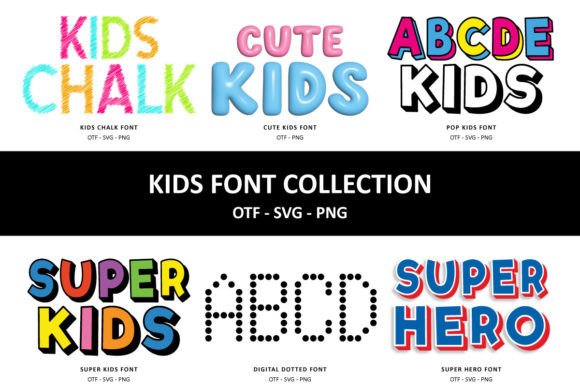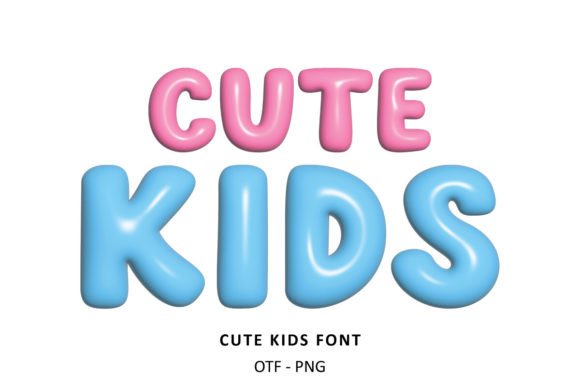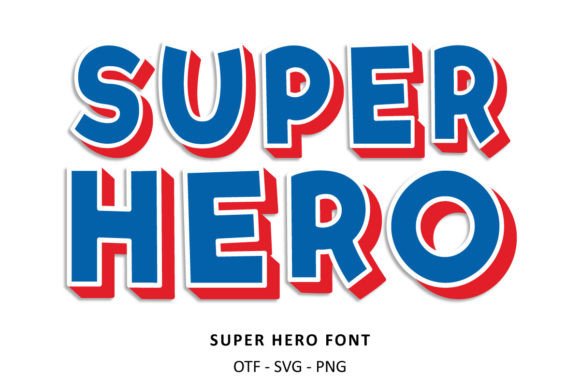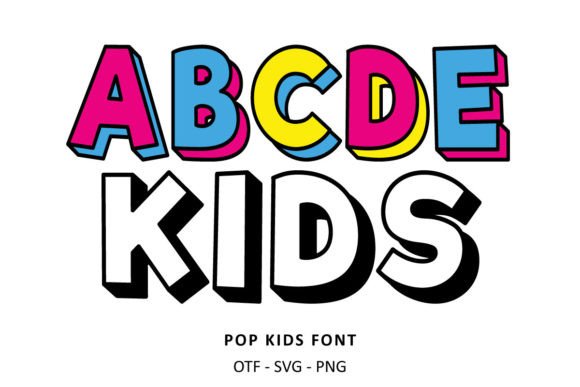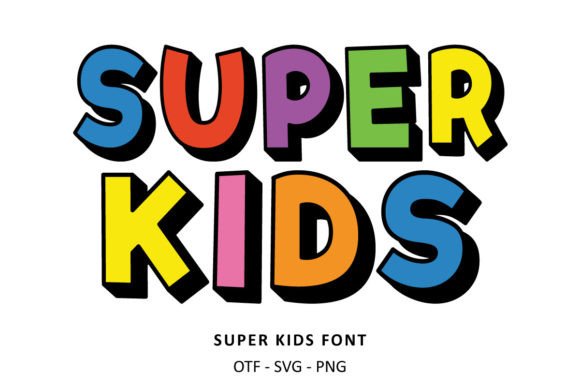
Kids Collection Font
Kids Font Collection gathers 14 eye-catching kid-style fonts, covering all your crafting needs for kids-themed. With this bundle, you can create a variety of projects from greeting cards, invitations, social media posts, logos, and so much more!
This bundle font includes the characters A-Z, 0-9 (Excluding punctuation marks).